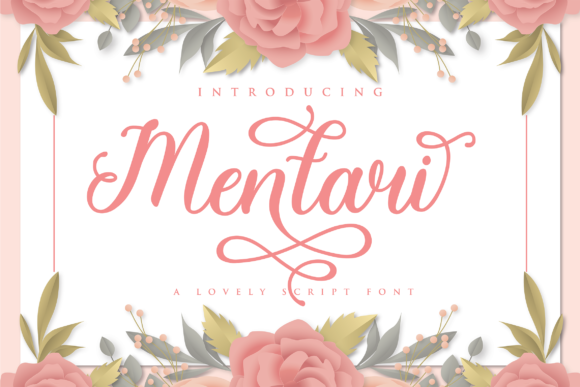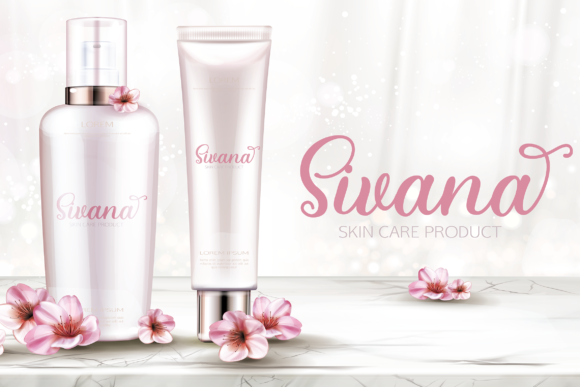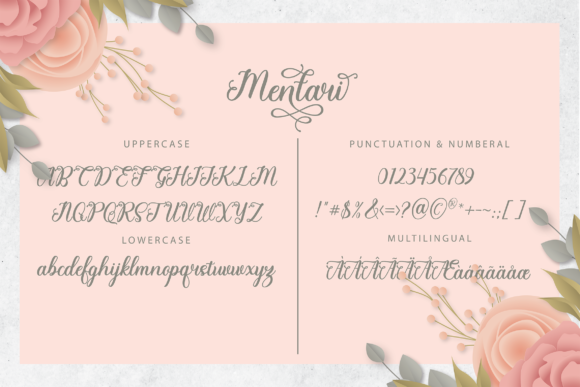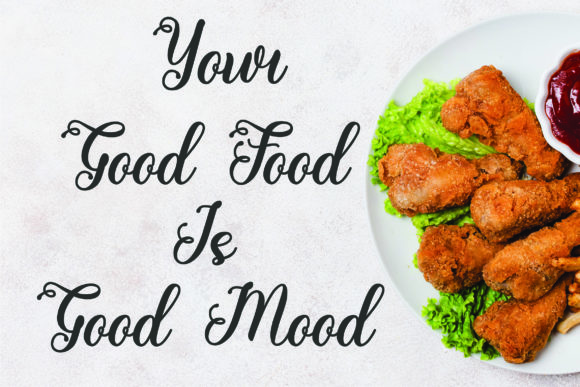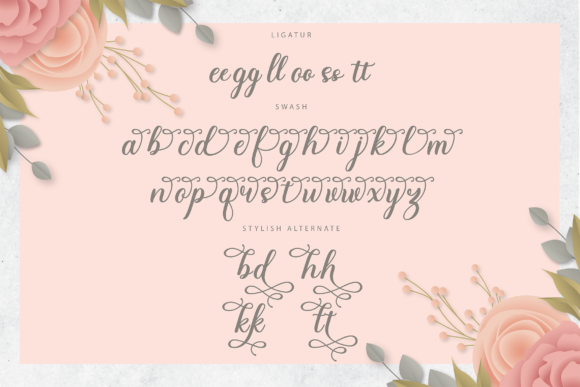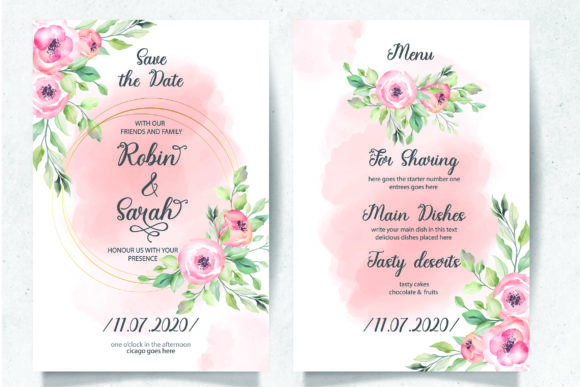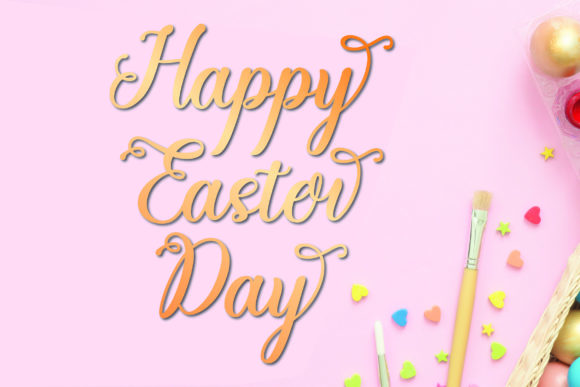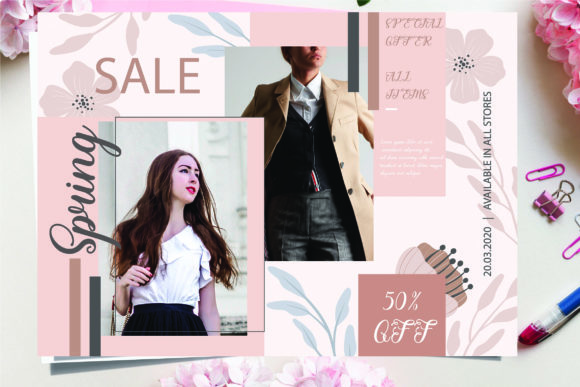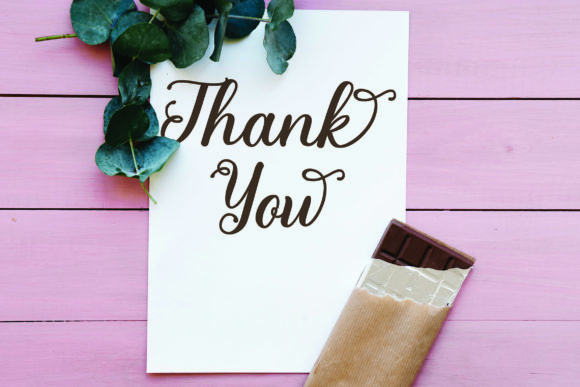
Mentari  Font
Mentari feels equally charming and elegant. Mentari comes with lots of swash, which will allow you to add decorative touches in seconds. This font is PUA encoded which means you can access all the magic glyphs and swash easily!